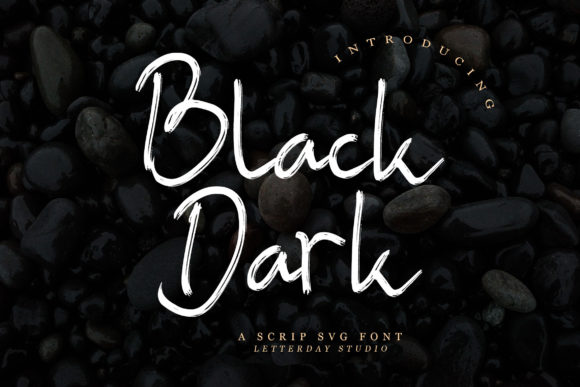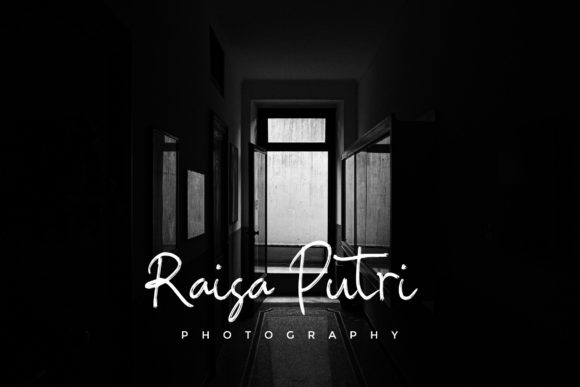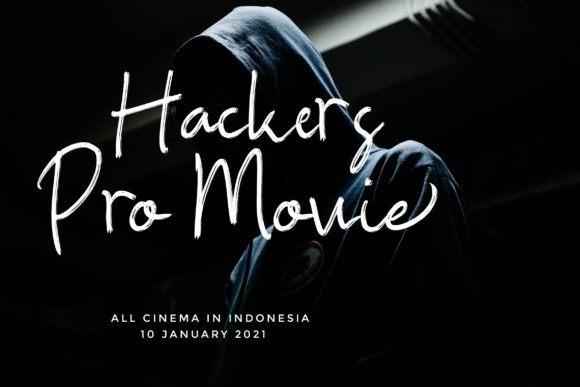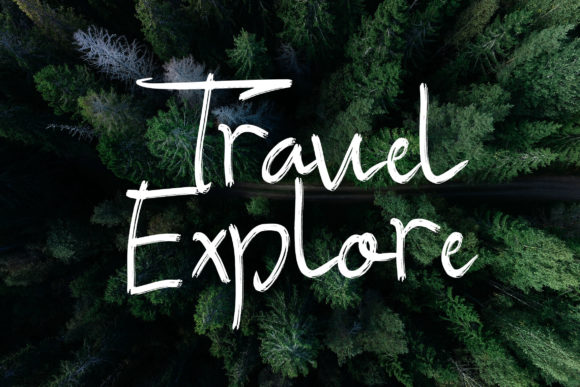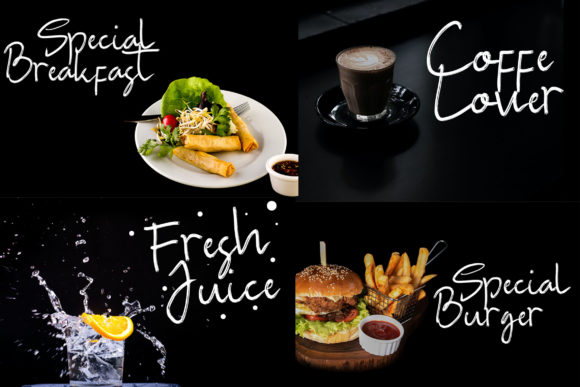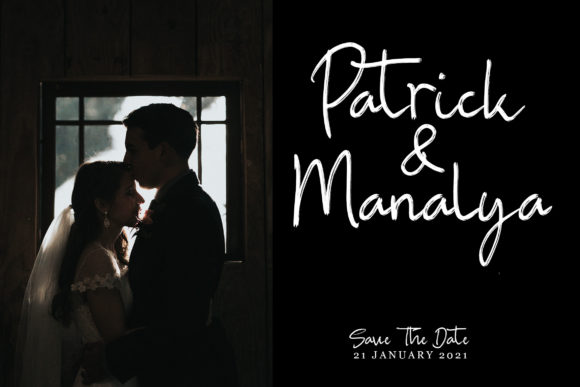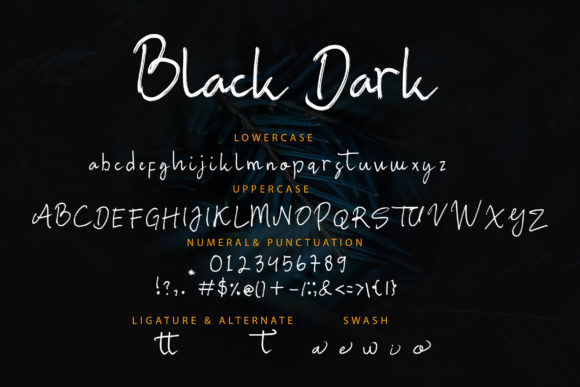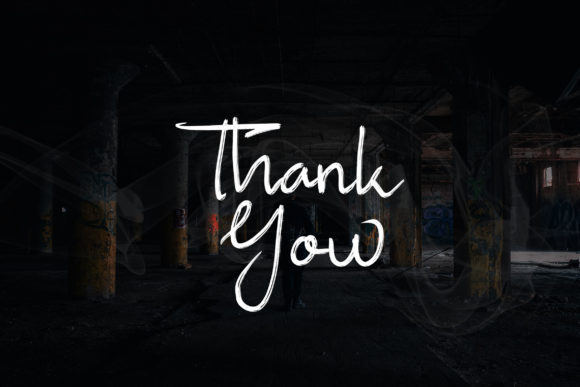
Black Dark Font
About Black Dark Font
Black Dark is a simple brushed script font. Dainty and cute, this font will make each of your designs look gorgeous. Add it to your personalized creations and notice the amazing results.